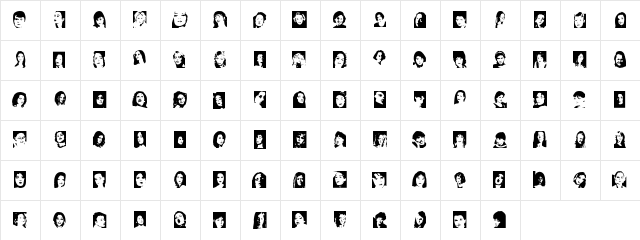
Faces female Font Preview
Faces female
Design Context for Faces Typeface
Faces is a composed and adaptable typeface that performs quietly and consistently across a wide range of design contexts.